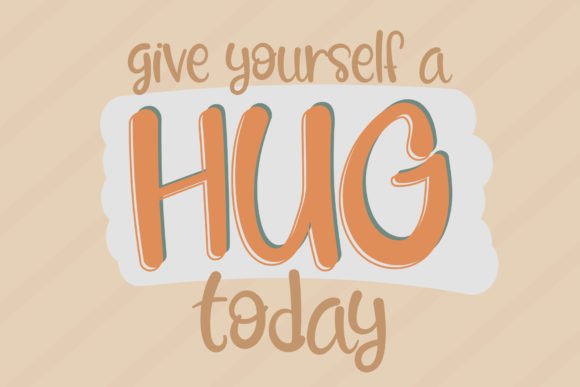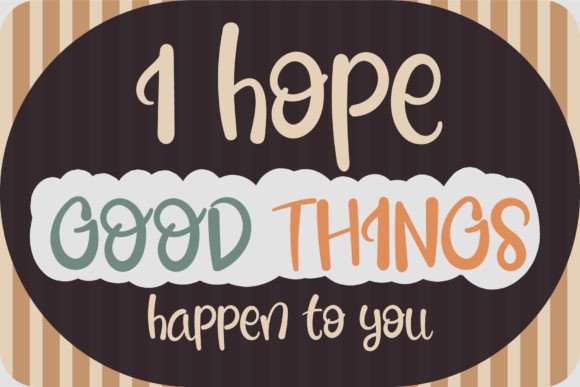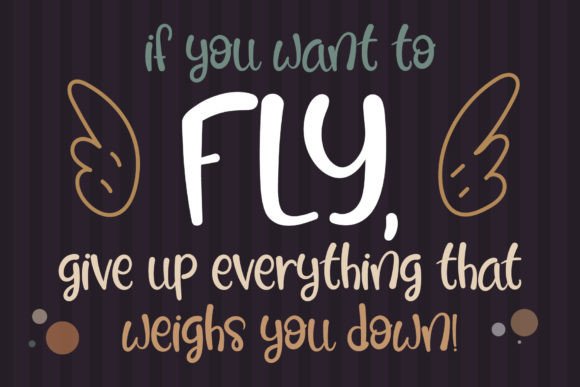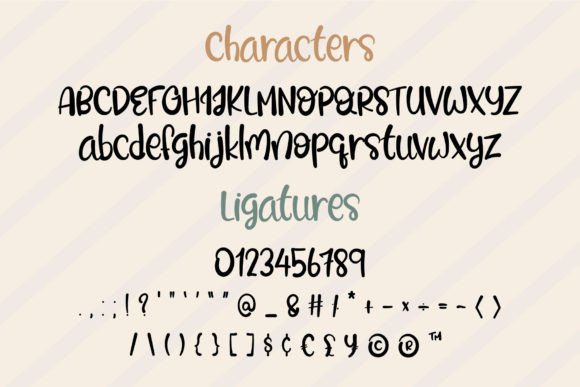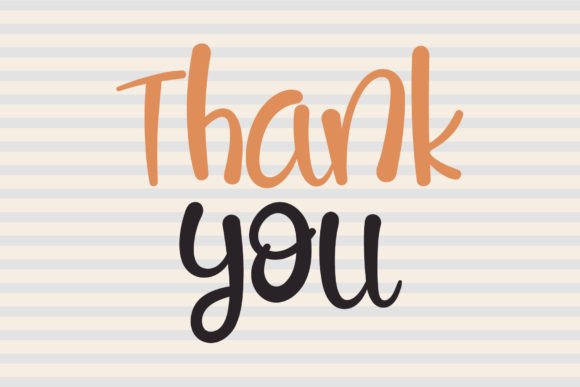
Run out of Font
Introducing “Run Out Of,” a simple and joyful handwritten font that exudes casual charm. This font is designed to appear wonderfully down-to-earth, readable, and incredibly versatile. Whether used on busy backgrounds or as a standalone headline, “Run Out Of” brings a sense of simplicity and joy to any context.
The casual and handwritten nature of “Run Out Of” adds a personal and approachable touch to your text. Its charm lies in its simplicity, making it suitable for a wide range of design applications where you want to convey a sense of friendliness and ease.
Incorporate “Run Out Of” into your designs and notice how it effortlessly stands out in various contexts. Its versatility makes it an excellent choice for headlines, branding, posters, social media graphics, and more. The simple and joyful aesthetic of this font brings a touch of positivity to your creative projects.
In summary, “Run Out Of” is more than just a font; it’s a creative asset designed to bring simplicity and joy to your designs. Download “Run Out Of” now and explore how it can enhance your headlines, branding, and various other design applications. With its casual charm, this font is ready to make a delightful statement in your creative endeavors.